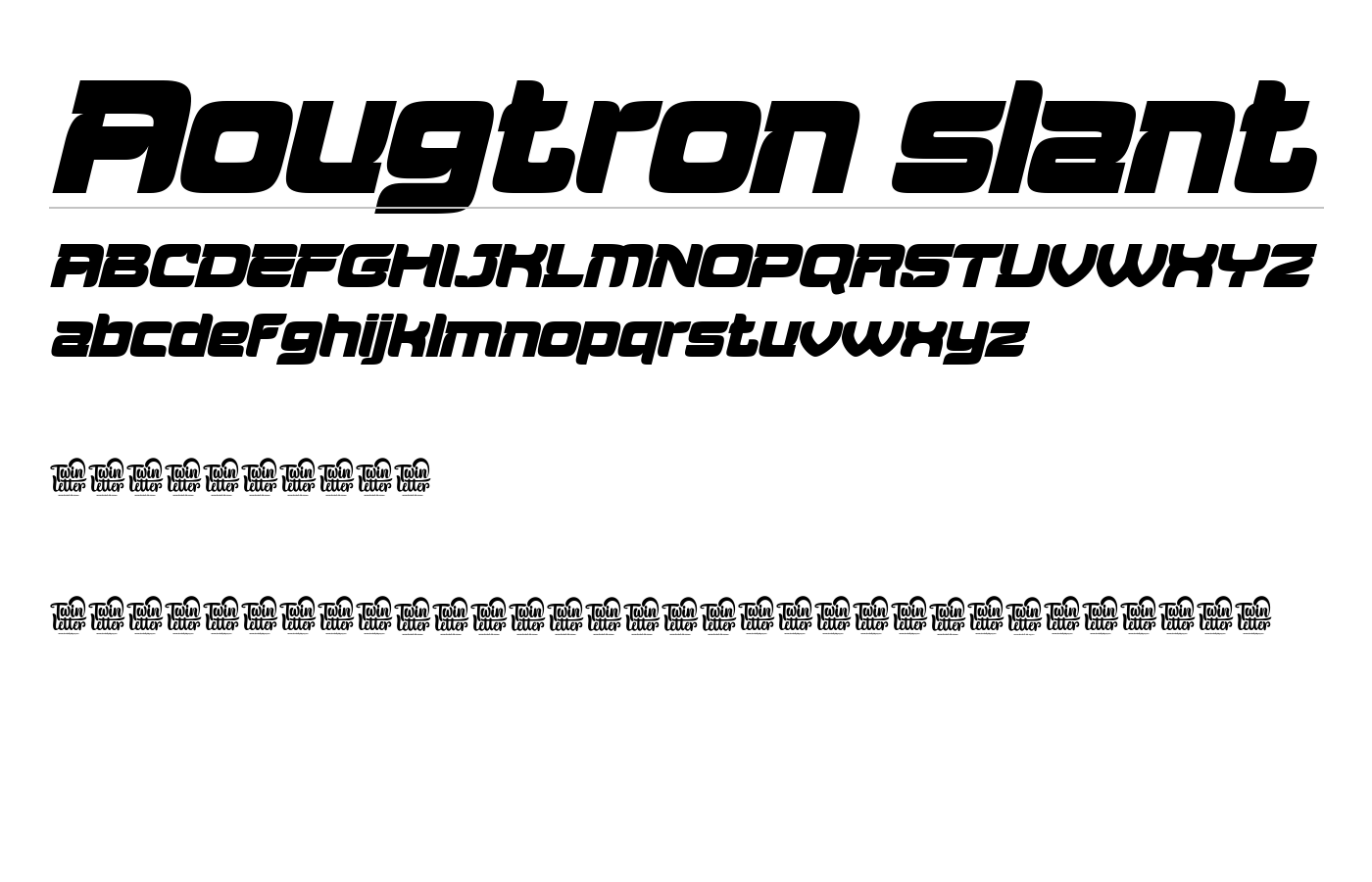
Aougtron is a bold, sans serif typeface with a strong, italic slant that gives it a dynamic and energetic feel. Its thick, uniform strokes and tight letter spacing create a compact, modern look perfect for logos, headlines, and branding that need to convey speed, strength, and forward motion. This font works well in sports, technology, and automotive designs where a powerful, futuristic impression is desired.
Aougtron Font